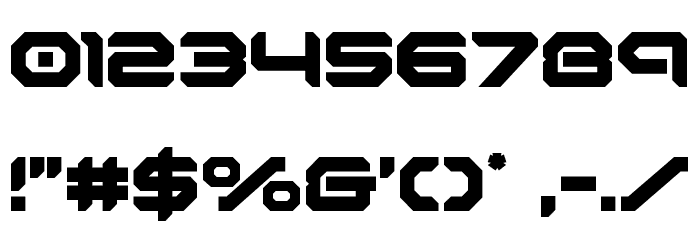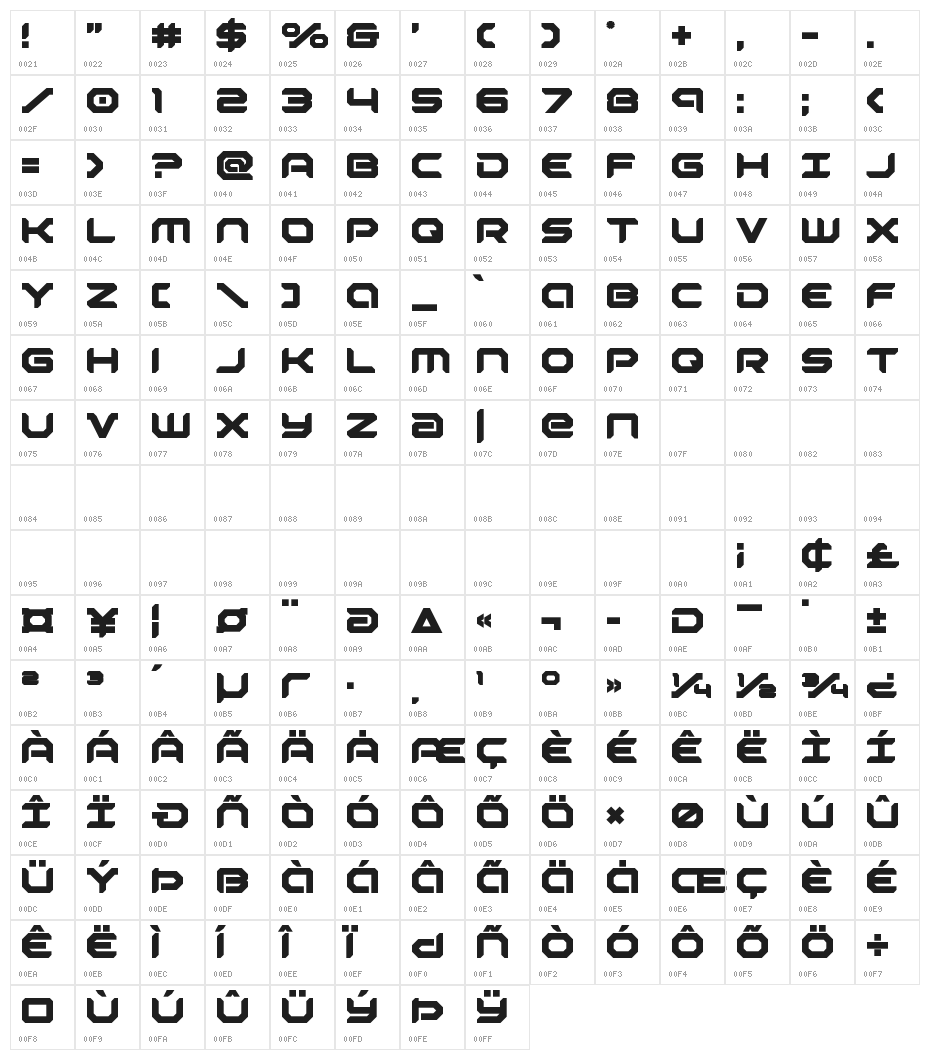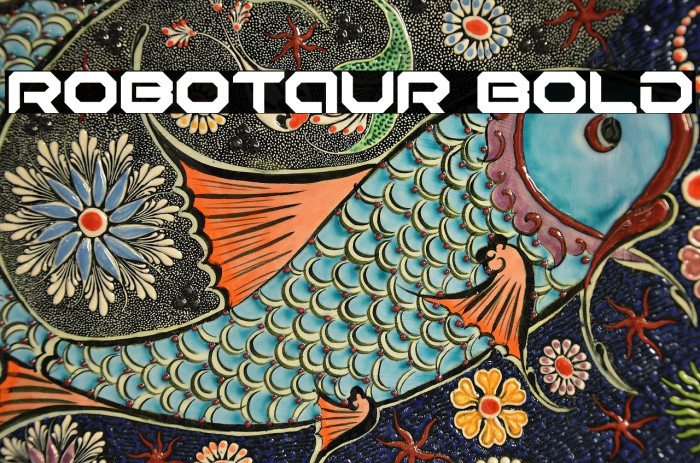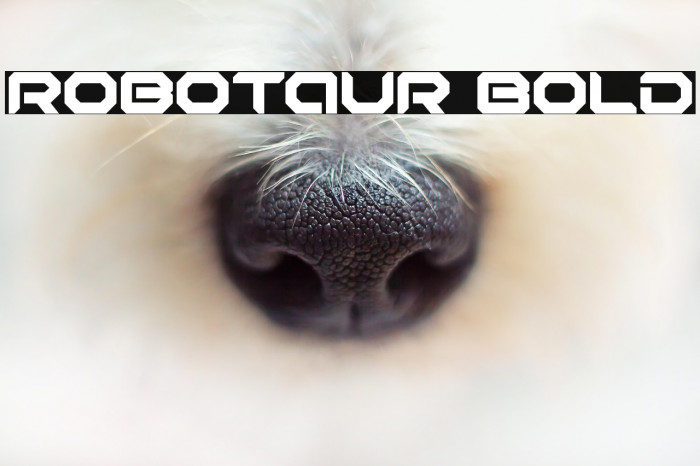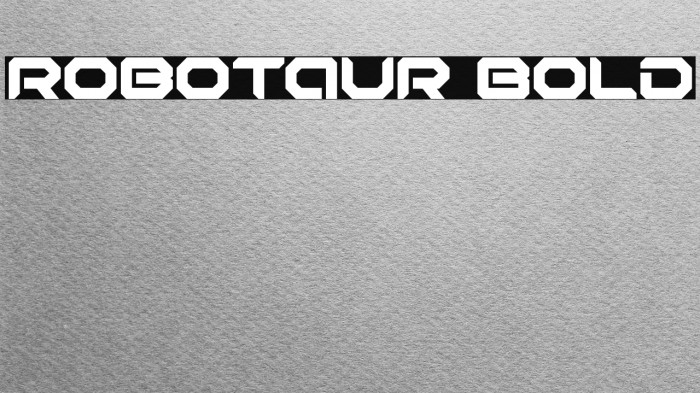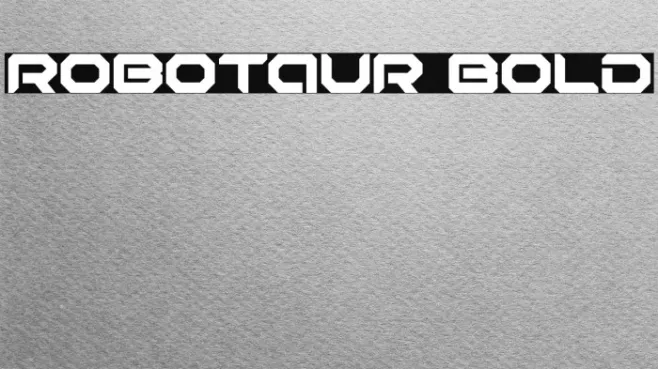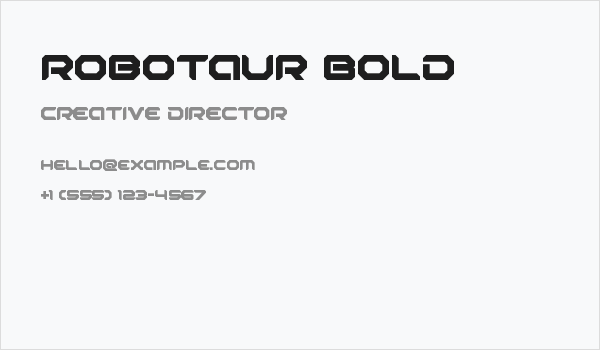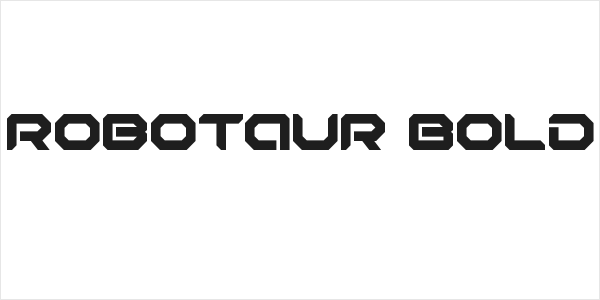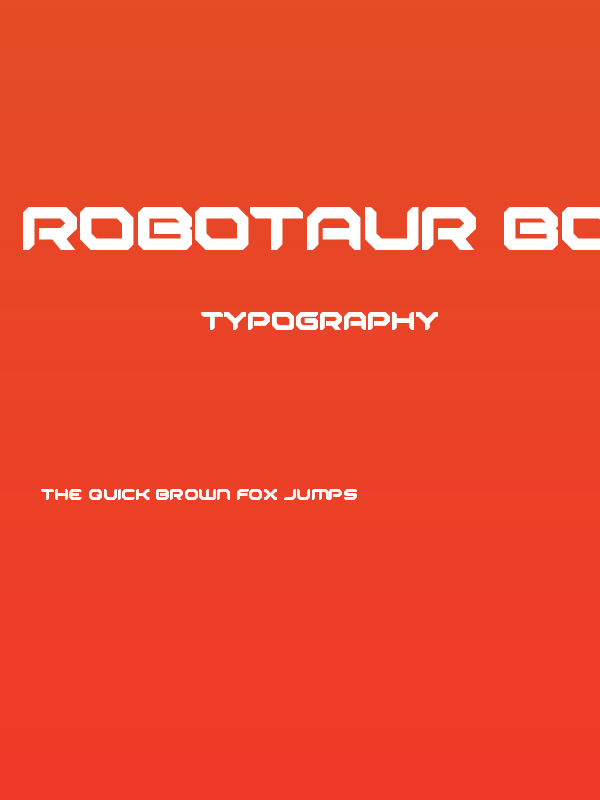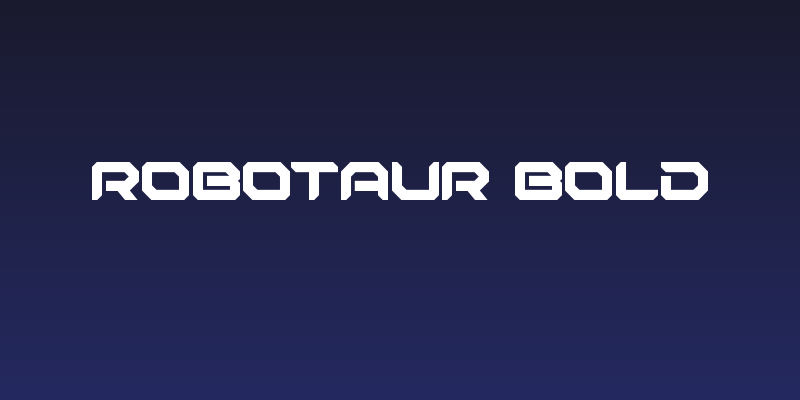
Robotaur Bold Font
Robotaur Bold Description
This font features a bold, futuristic design with angular and geometric shapes. The characters are constructed with a consistent thickness, giving them a strong and robust appearance. The style is reminiscent of digital or sci-fi themes, with a modern edge that makes it stand out. The uppercase and lowercase letters maintain a uniform height, contributing to a cohesive and structured look. The numerals and special characters follow the same design principles, ensuring a harmonious overall aesthetic. This font is ideal for projects that require a bold and impactful visual presence.
| Proposed Projects | Ideal for sci-fi themed designs, video game titles, tech branding, and futuristic posters. |